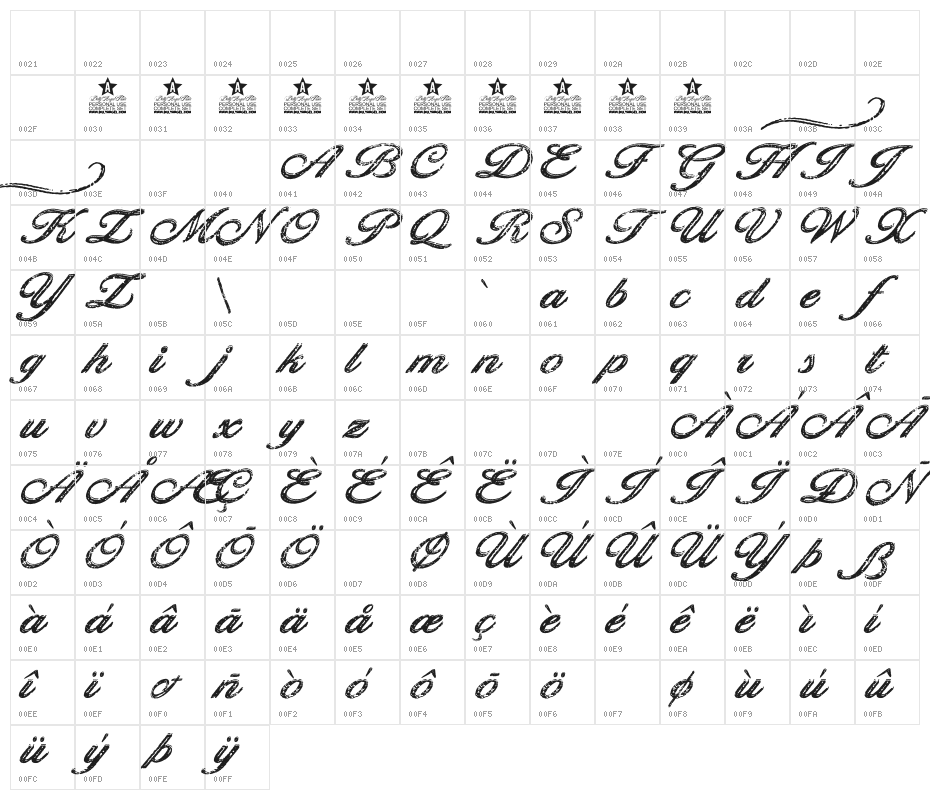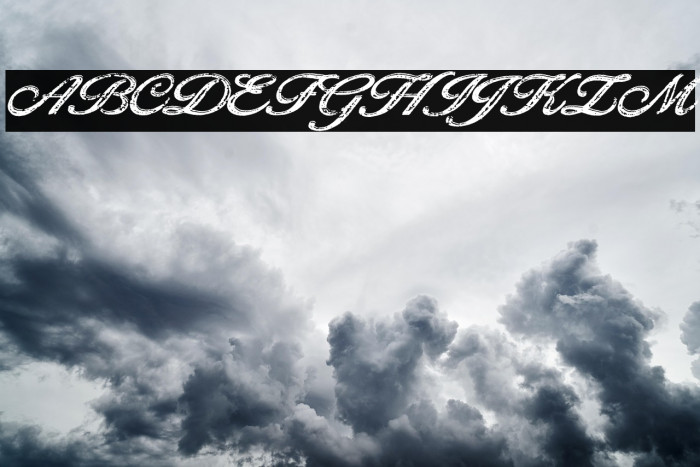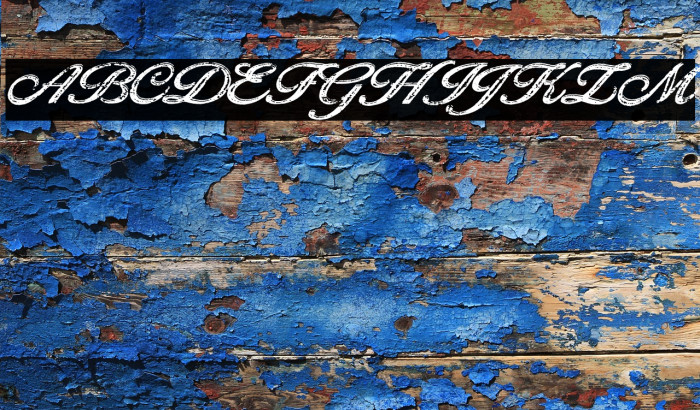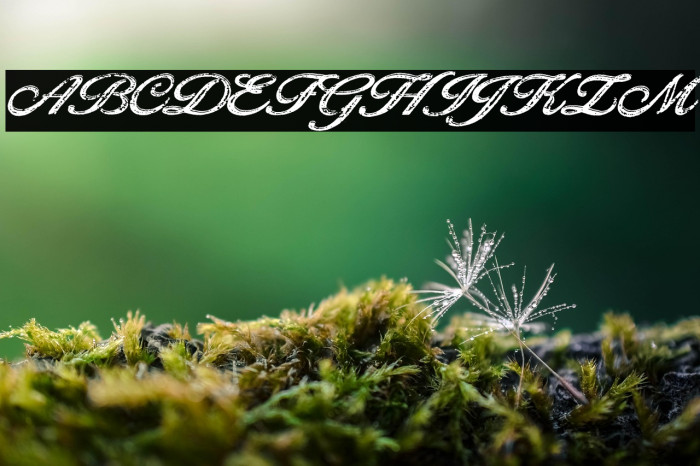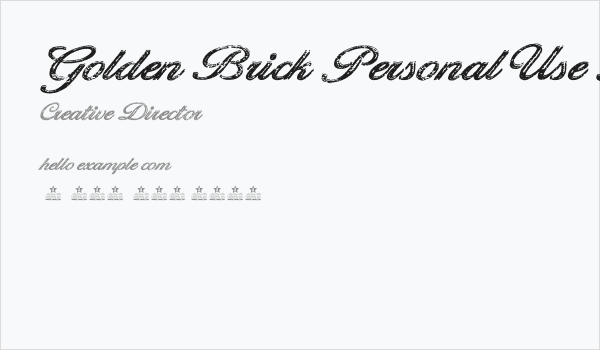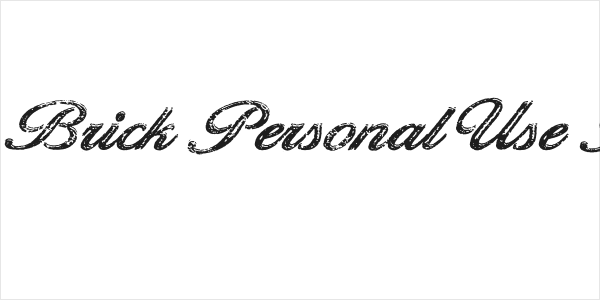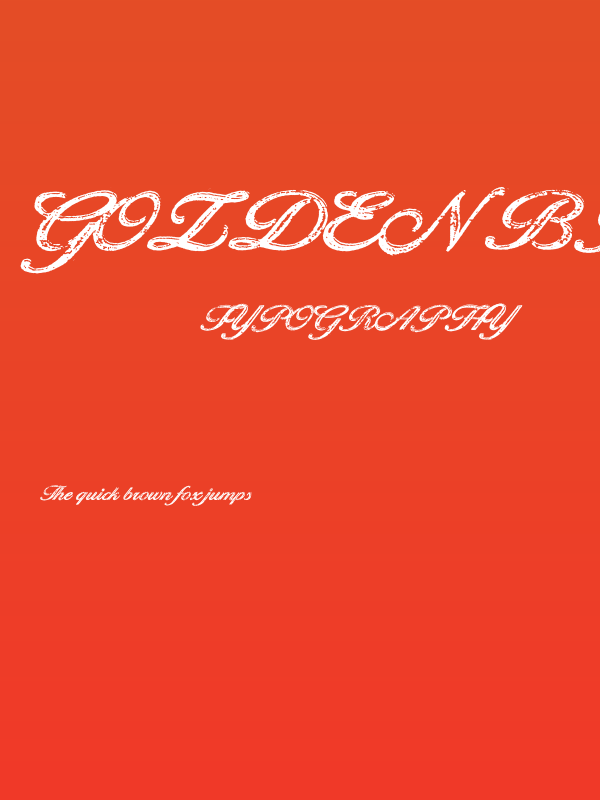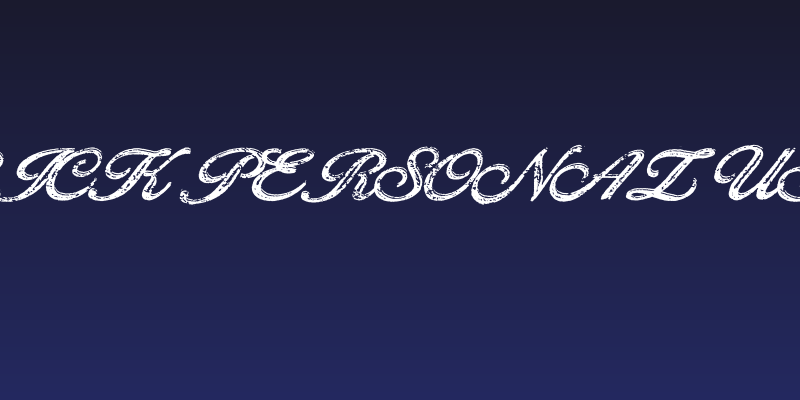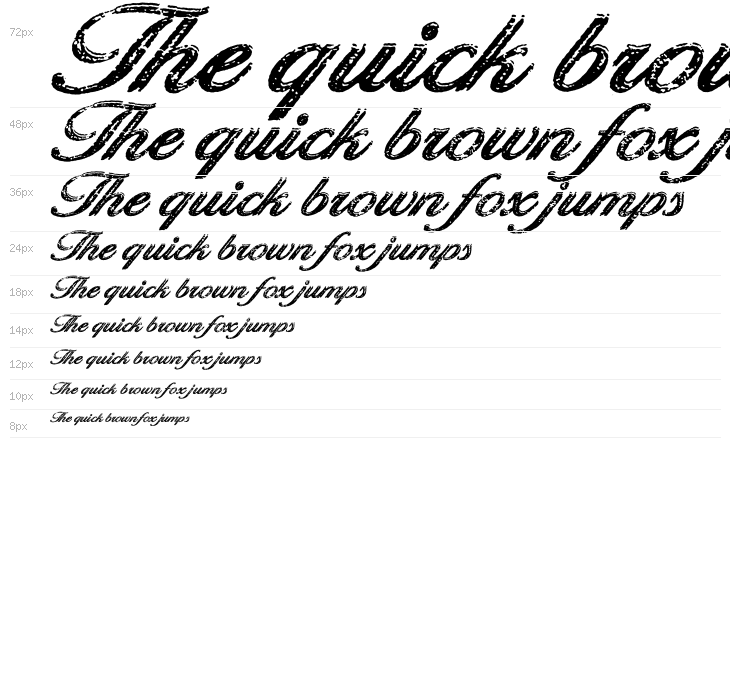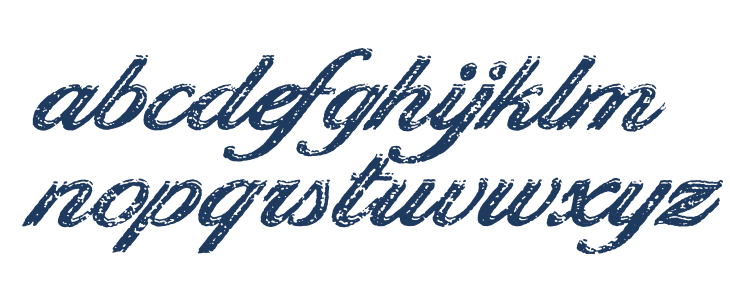
Golden Brick Personal Use Regular Font
Golden Brick Personal Use Regular Description
This font features a decorative and textured script style, characterized by its elegant and flowing letterforms. The strokes are embellished with a distressed, grunge-like texture that adds a vintage and artistic flair. The uppercase letters are bold and prominent, while the lowercase letters maintain a consistent flow, enhancing readability. The font's unique style is suitable for creative projects that require a touch of sophistication and artistic expression.
| Overall Style | Vintage, Decorative |
| Proposed Projects | Ideal for branding, invitations, posters, and artistic designs that require a vintage or handcrafted look. |